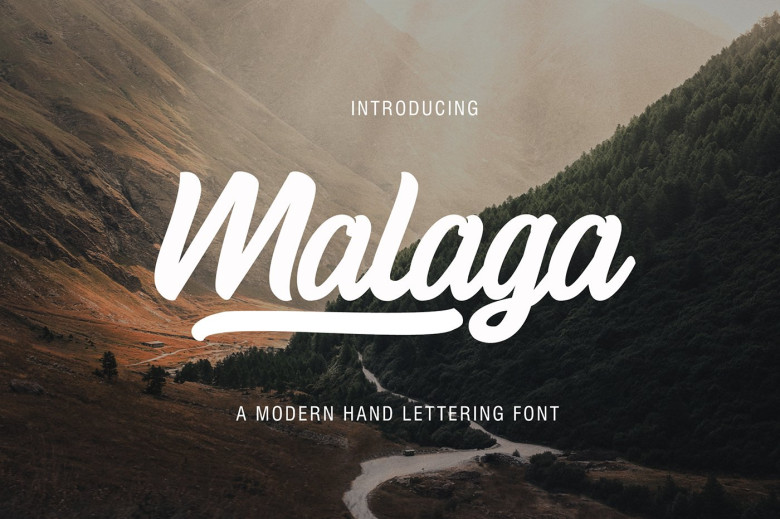
Malaga Script Font
Introducing Malaga font,Malaga is a hand-drawn, font It’s combined with it’s playful style create a modern fun font that will work in different types of projects. malaga font is legible, and comes with alternative options